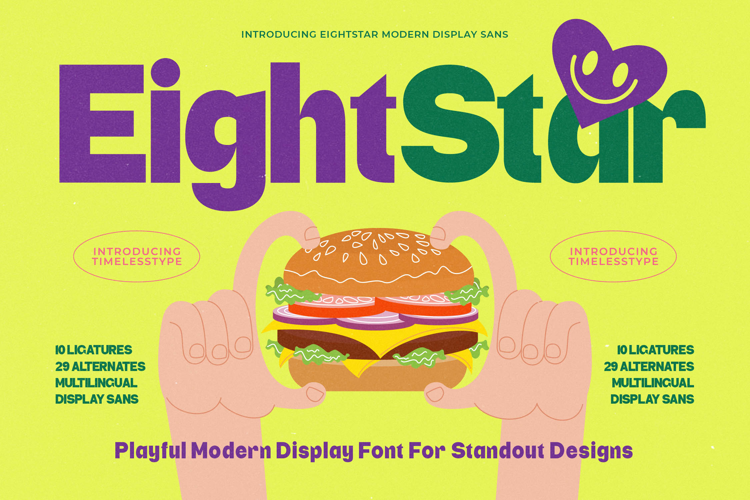
EightStar - Playful Modern Display Sans
Elevate your branding with unmistakable visual impact. Introducing EightStar - Playful Modern Display Sans, the vibrant modern sans-serif designed to command attention in any setting. This typeface masterfully combines a weighty, chunky structure with subtly rounded edges, injecting an immediate sense of fun and approachability into your designs. It is the ultimate solution for creators seeking a truly standout aesthetic in a crowded marketplace.